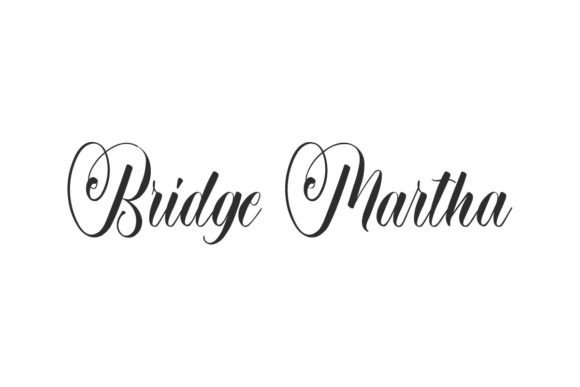
Prepare to be mesmerized by Bridge Martha Font, a charismatic calligraphy font that will captivate your designs with its elegant curls and effortless readability. This stunning script font is the brainchild of NihStudio, renowned for creating fonts that exude artistry and sophistication.
Immerse yourself in the beauty of Bridge Martha Font, a visual masterpiece that will elevate your designs to new heights. Its graceful strokes and sweeping curves add a touch of charm and personality to any project, making it an ideal choice for a wide range of applications. Whether you're crafting eye-catching logos, enchanting invitations, or captivating website headlines, Bridge Martha Font has the power to transform your words into works of art.
Unleash your creativity with Bridge Martha Font, a versatile font that lends itself effortlessly to a multitude of design styles. Its timeless elegance makes it a natural fit for classic and traditional designs, while its modern flair adds a contemporary edge to more trend-forward projects. Experience the joy of seamless design as Bridge Martha Font effortlessly complements your aesthetic, allowing your designs to shine brighter than ever before.